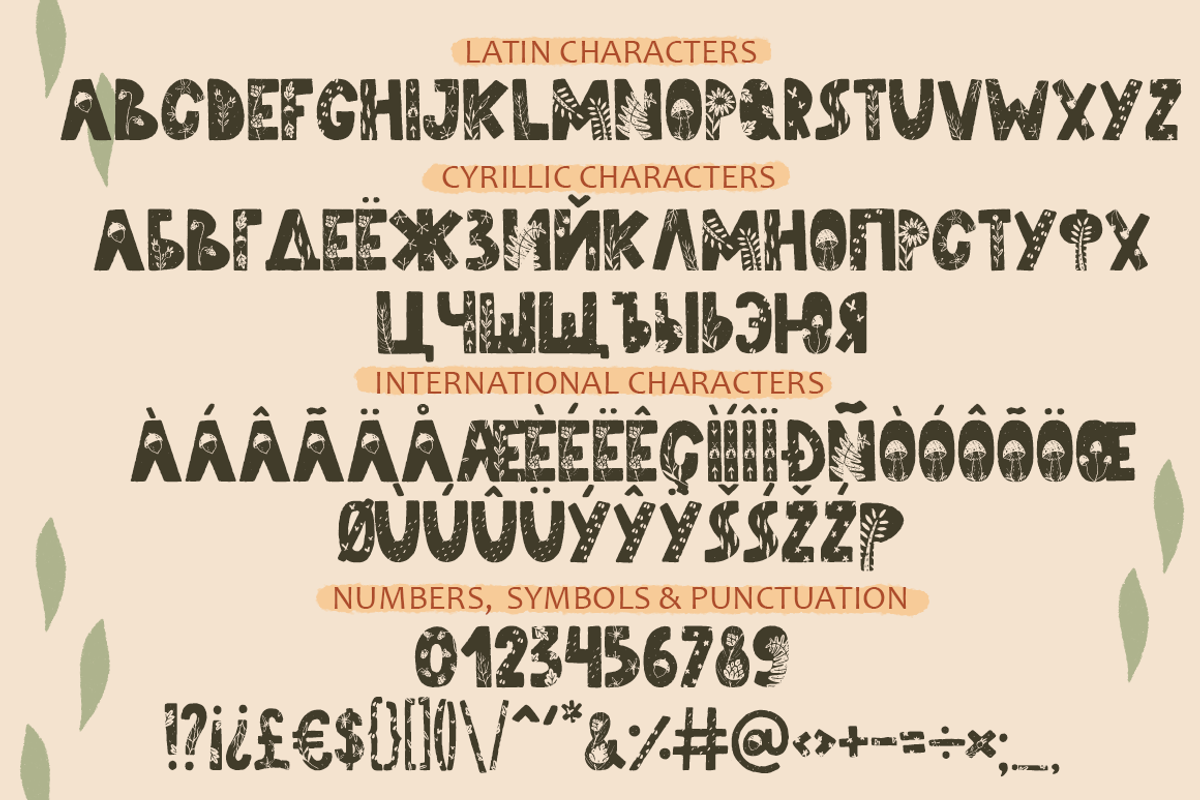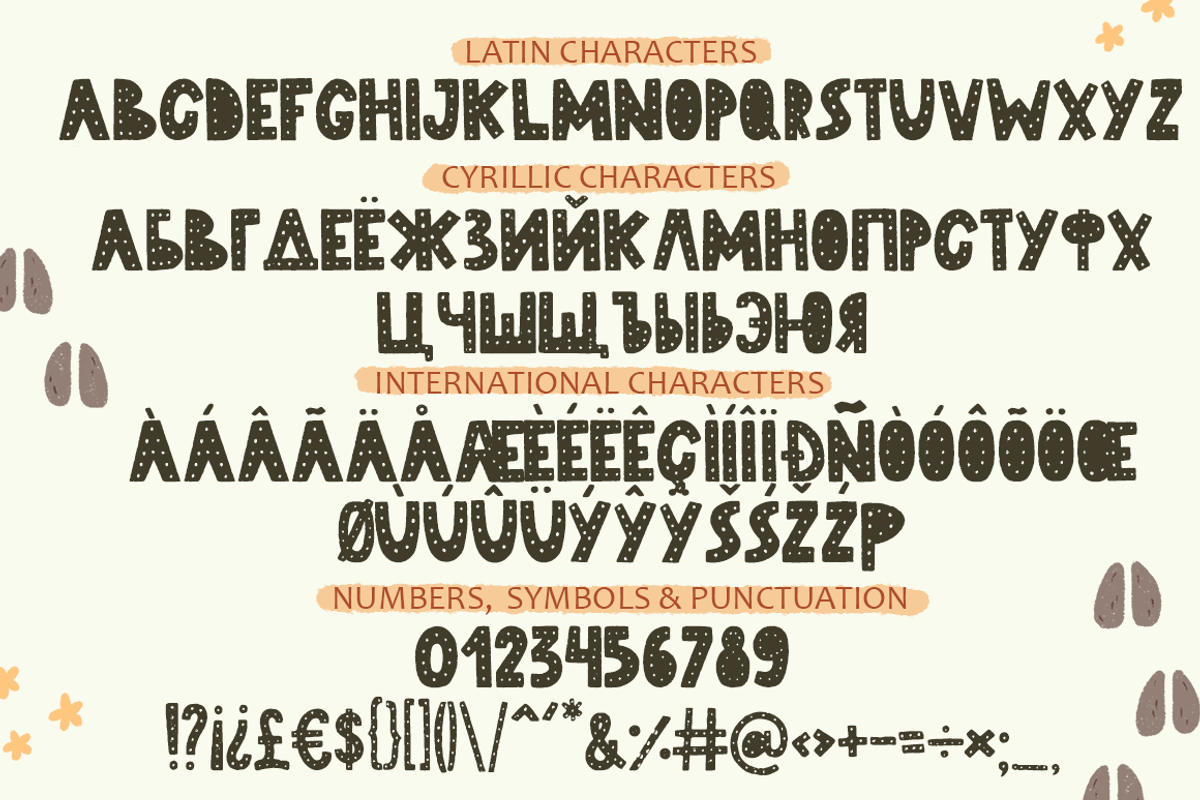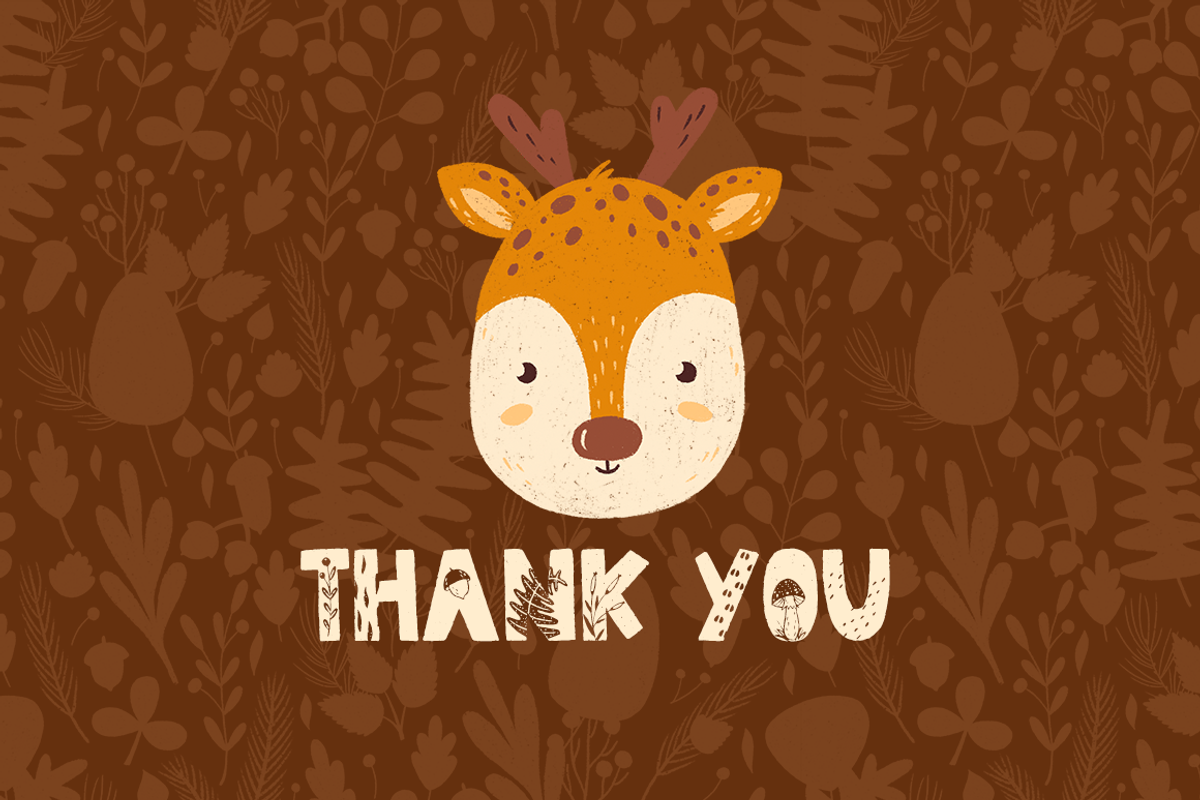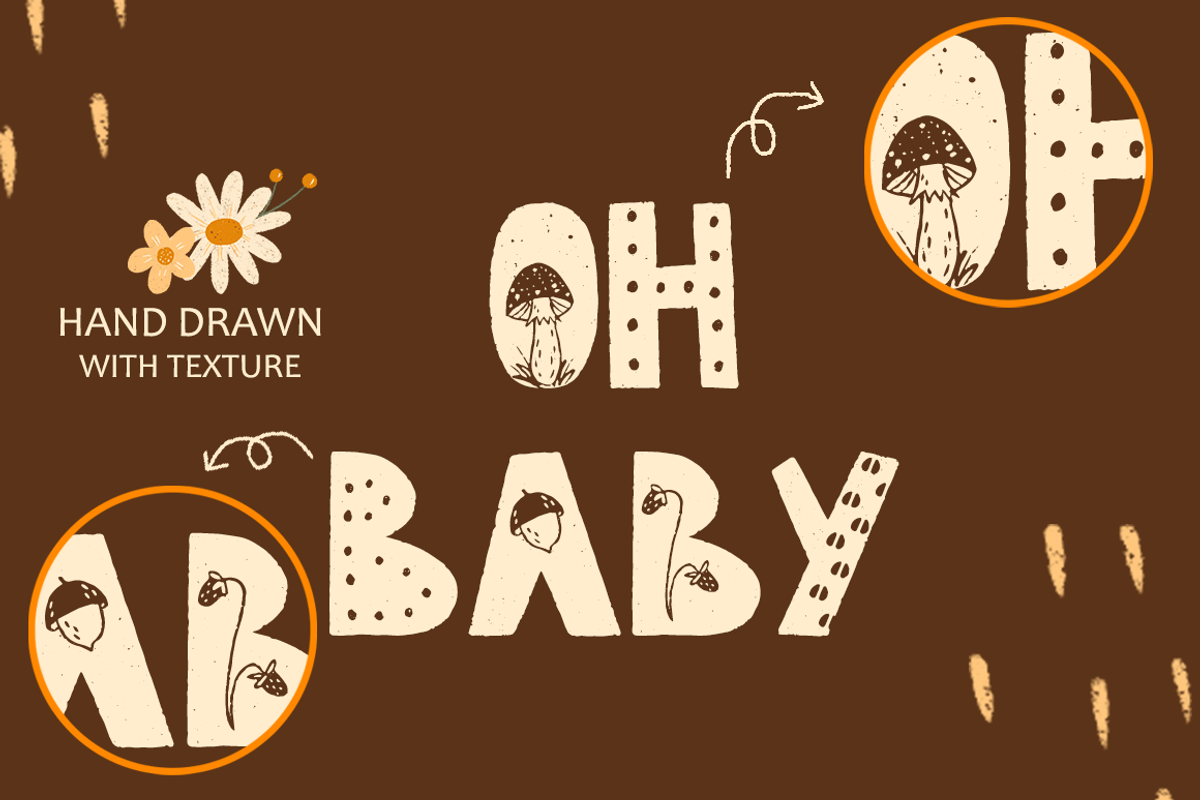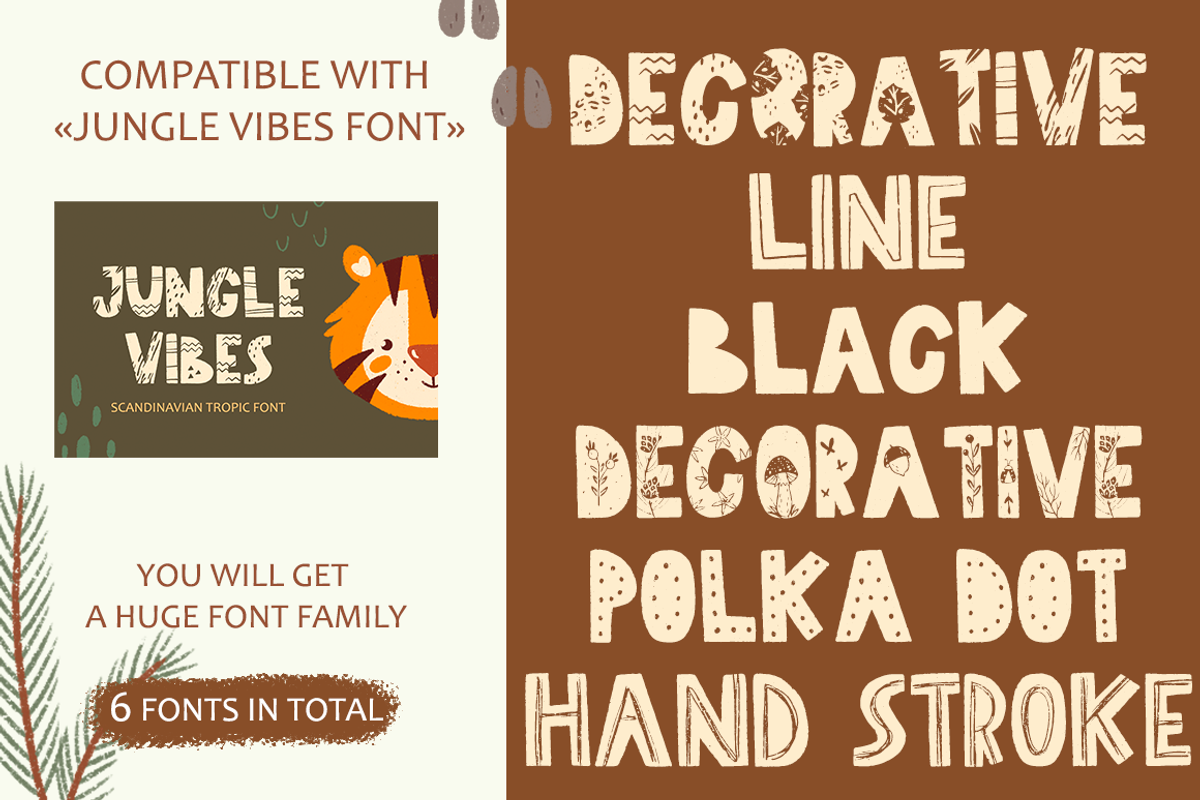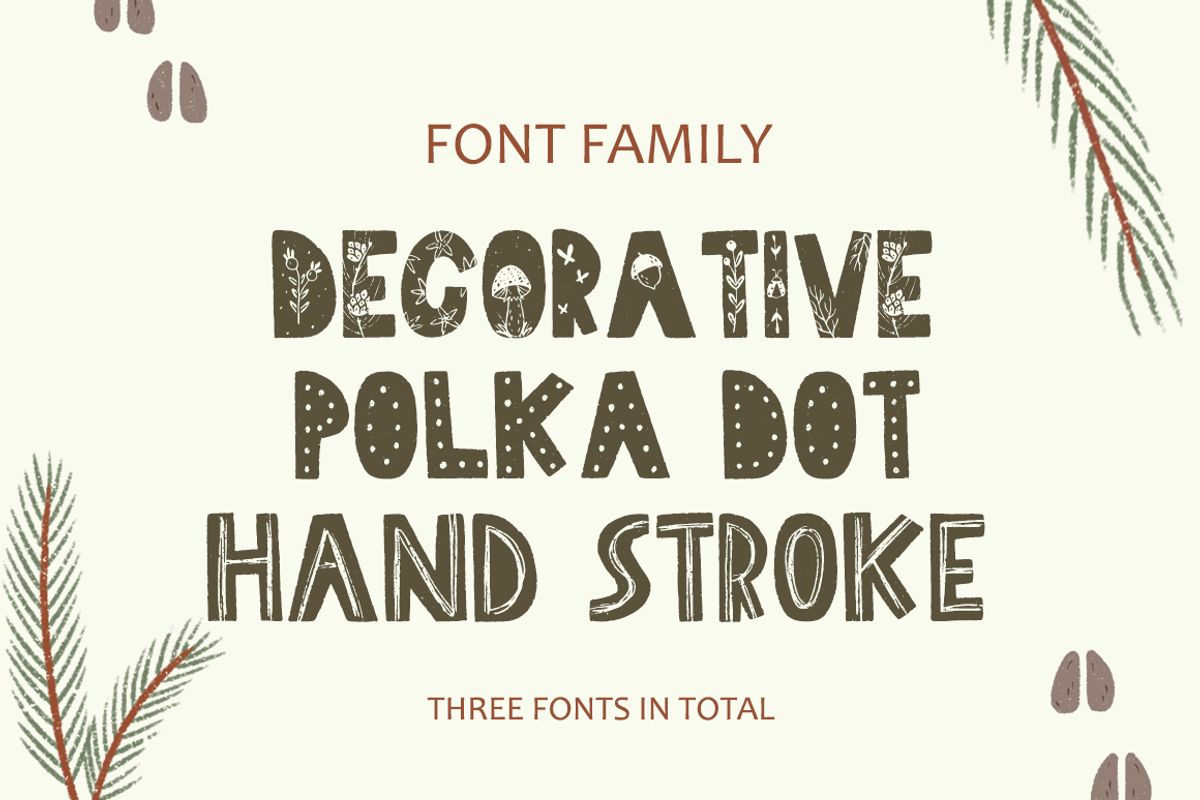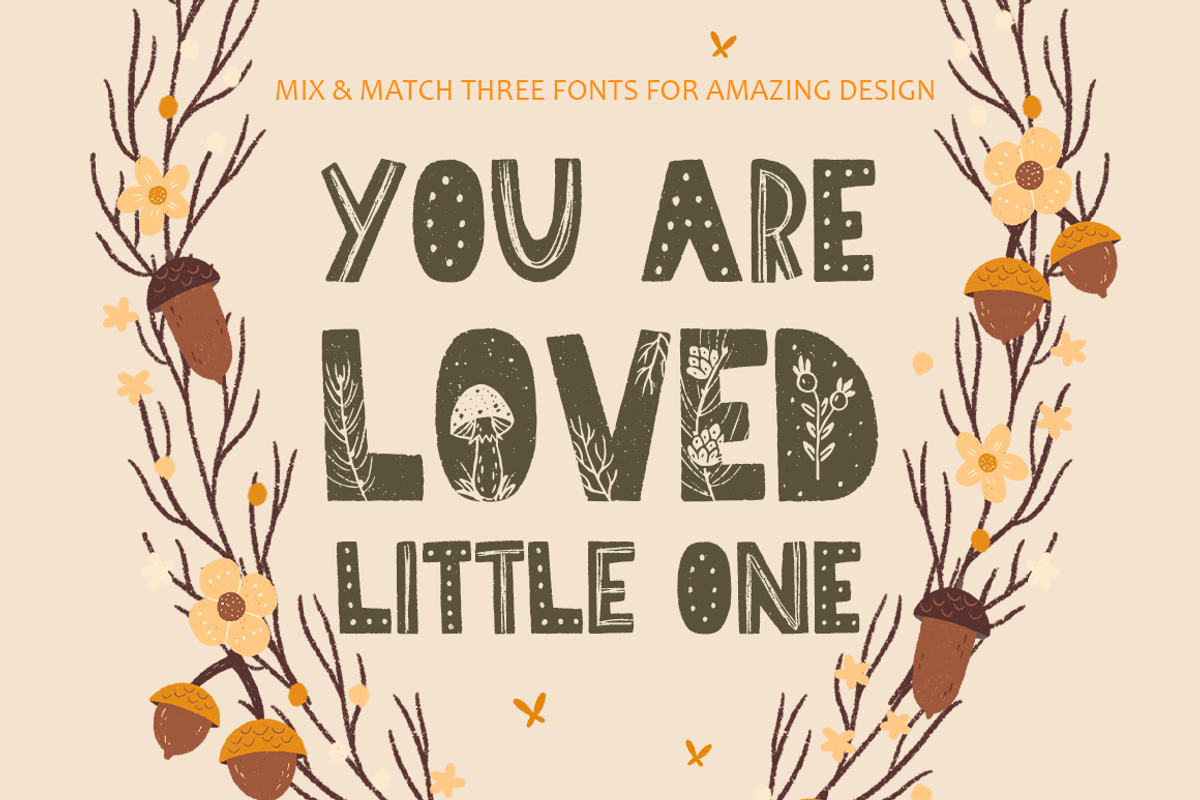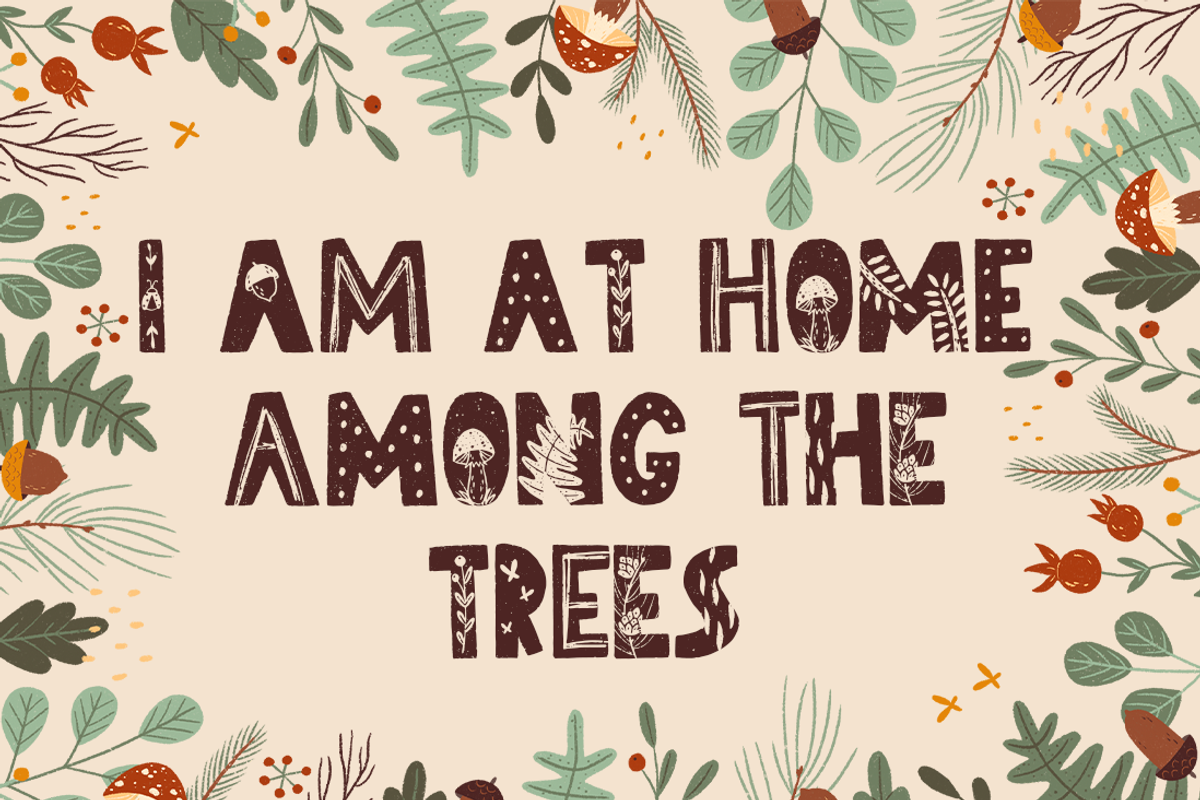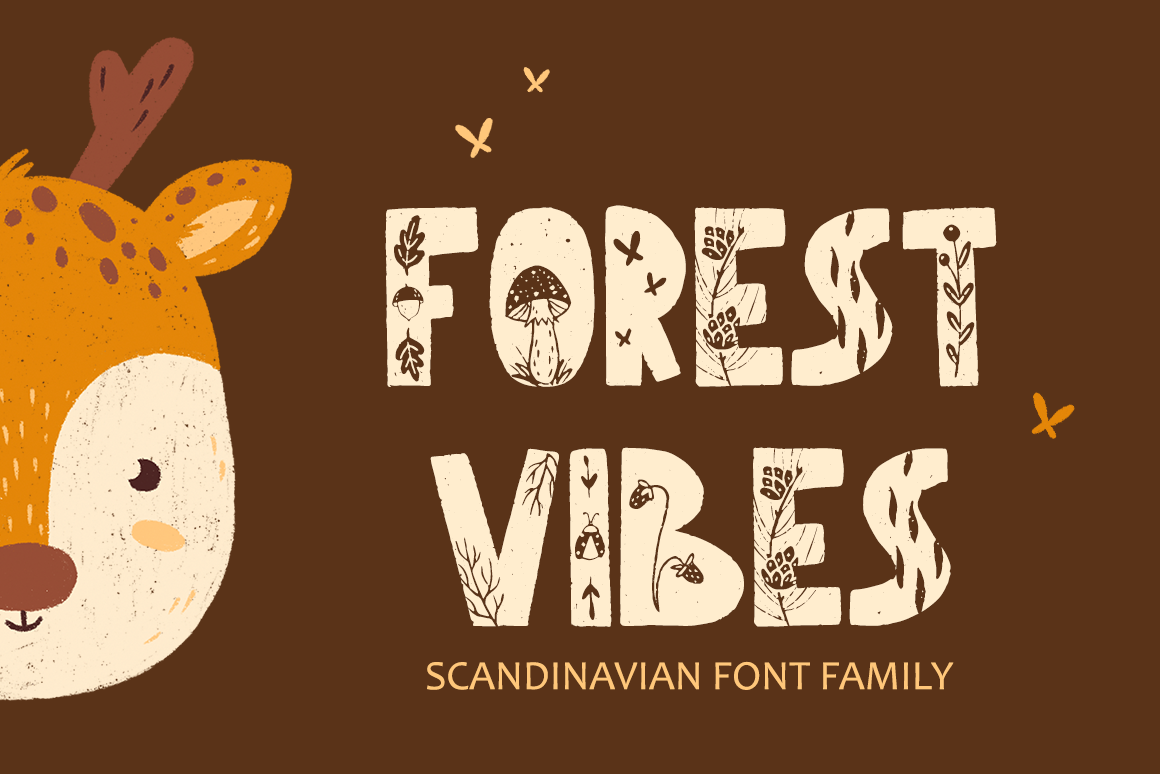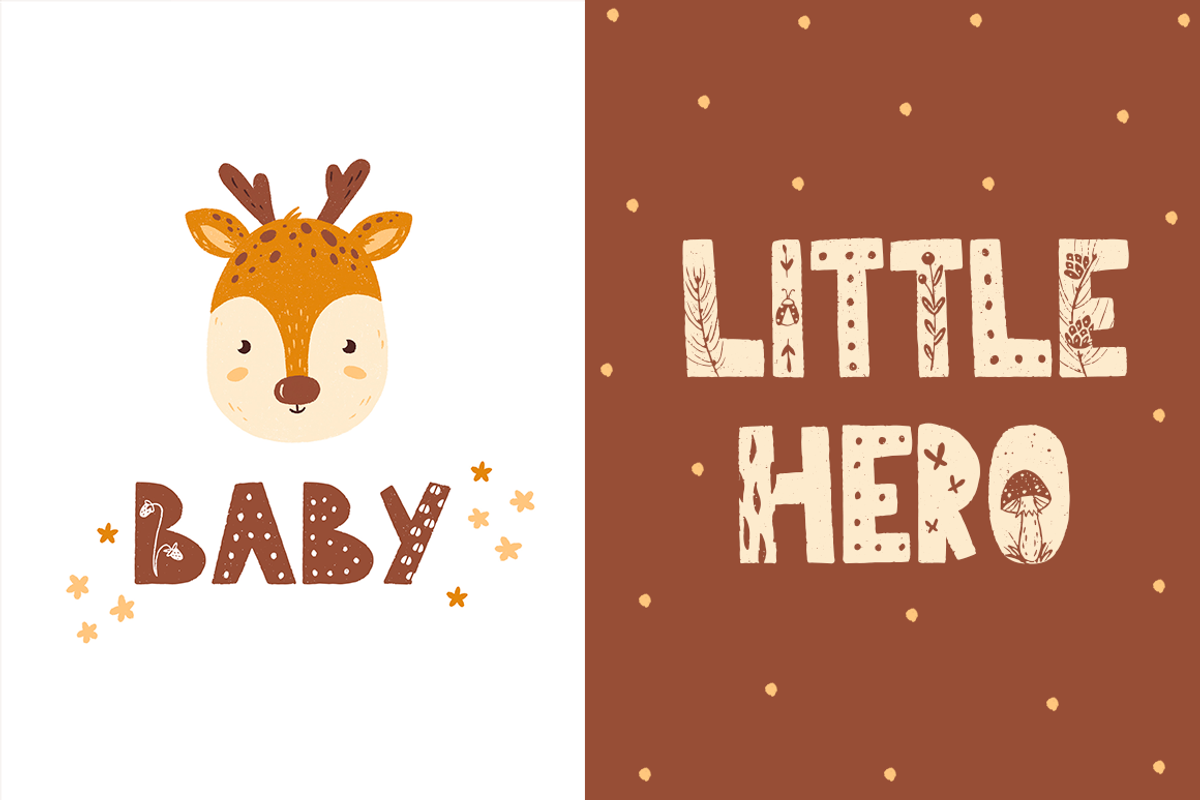
Forest Vibes • Font Family
Forest Vibes • Font Family is a stylish hand-drawn display font family with texture. This font family is perfect for decorating the theme party, for children's products, blogs, web design, posters, greeting cards and much more!
- Forest Vibes Font Family included 3 fonts: decorative, polka dot and hand stroke
- Latin set A-Z in 3 alternatives in total, you can mix it to create a unique design
- Cyrillic set А-Я also in 3 variations
- International characters also in 3 variations
- Numerals & Punctuation also in 3 variations
- This is ONLY uppercase.